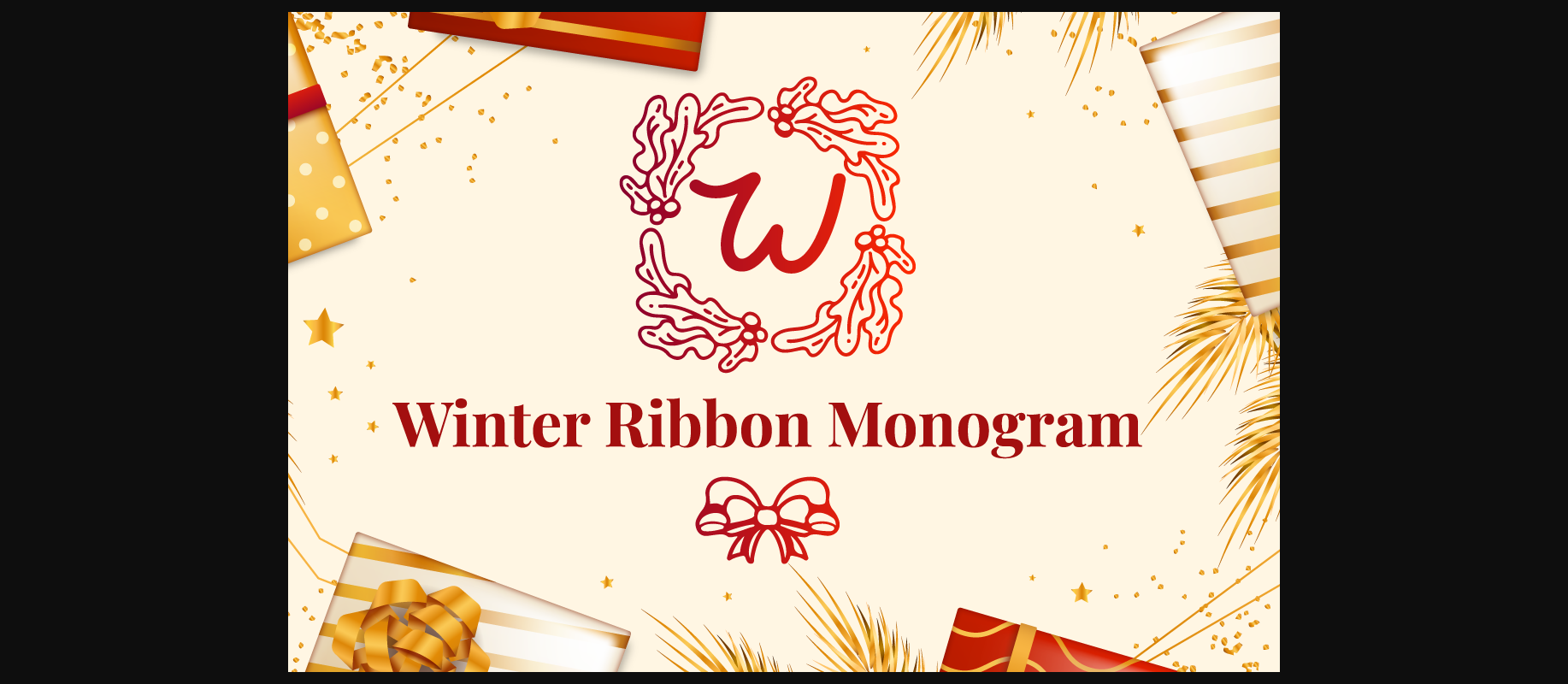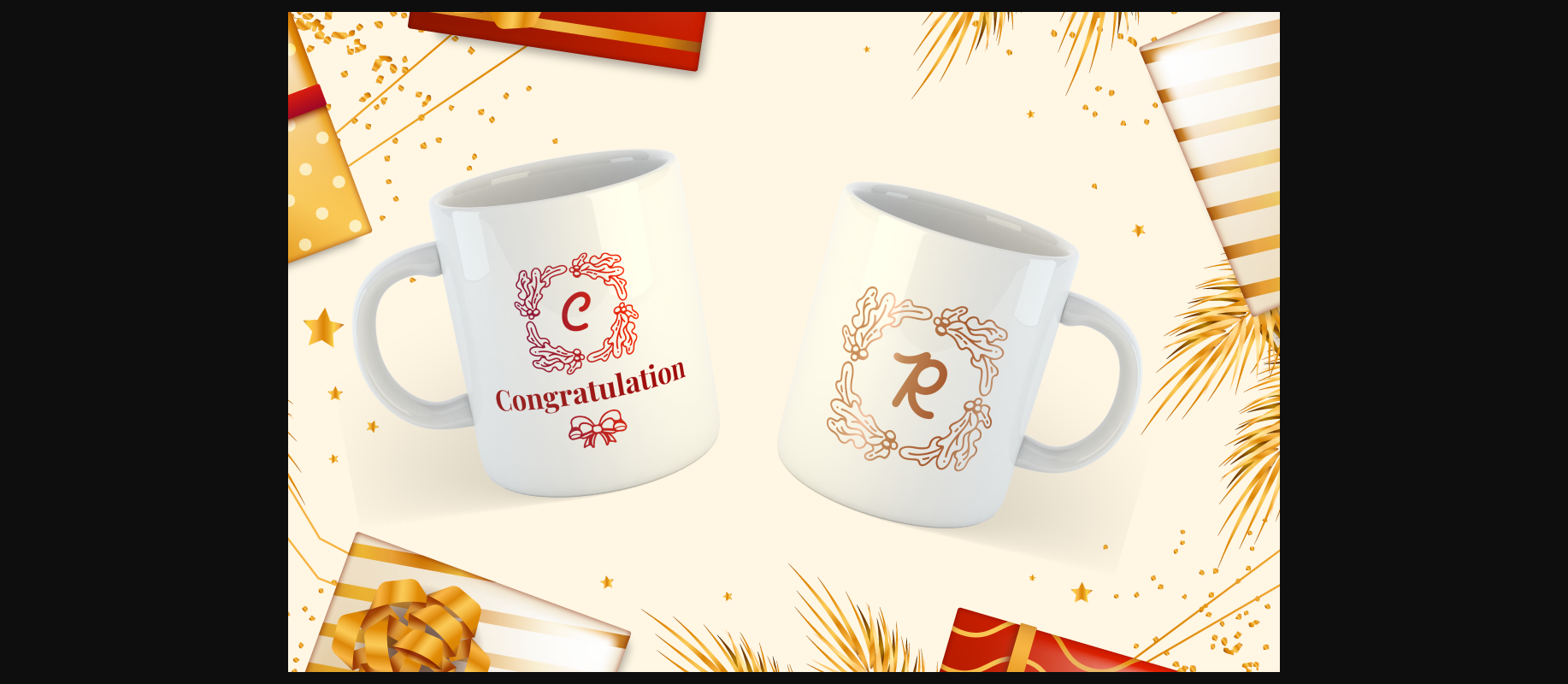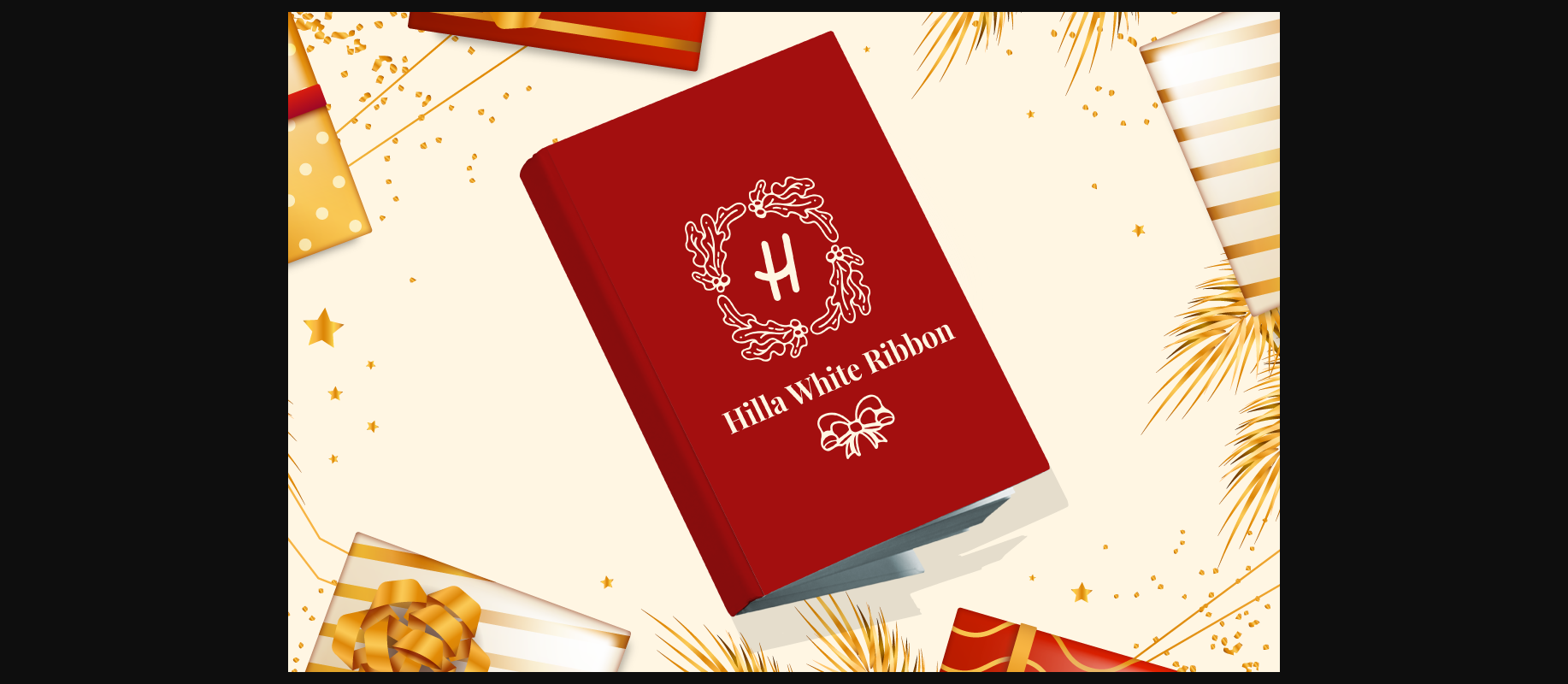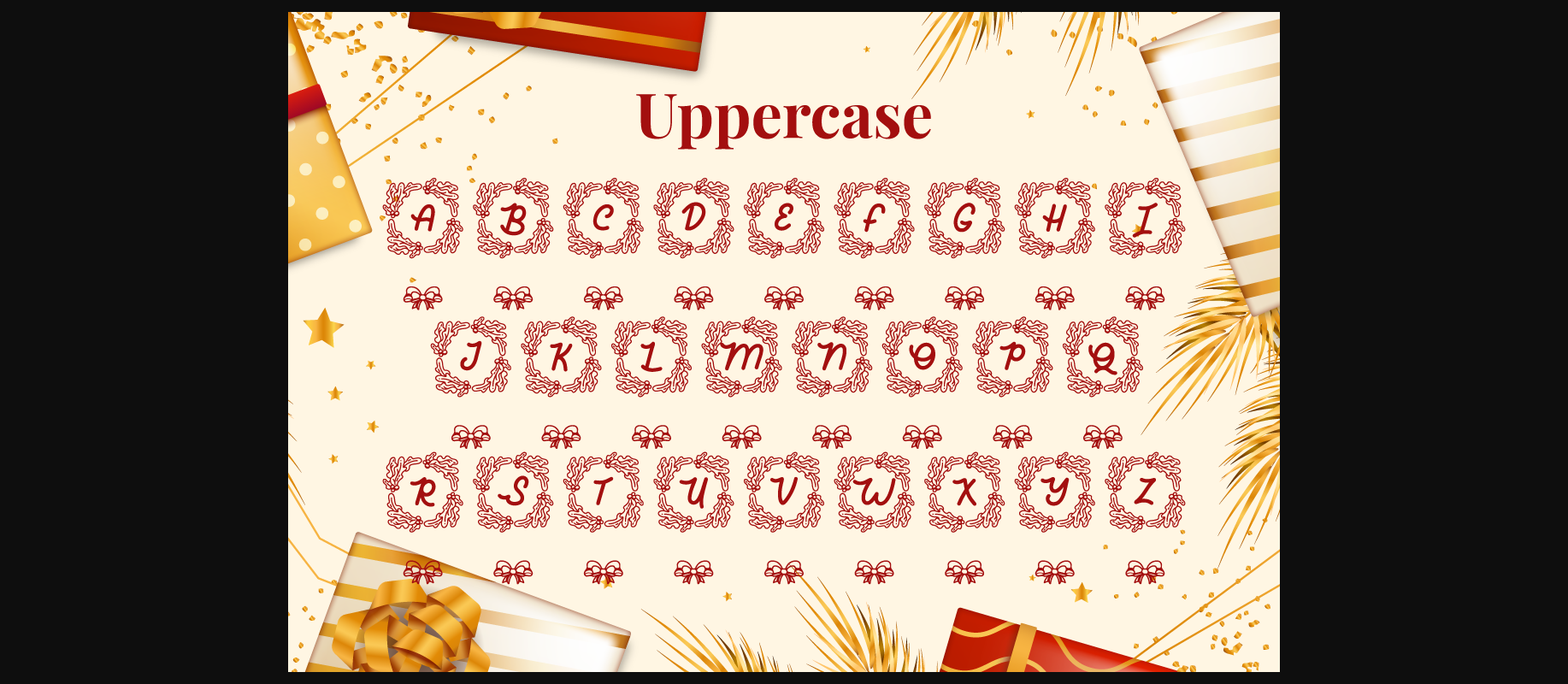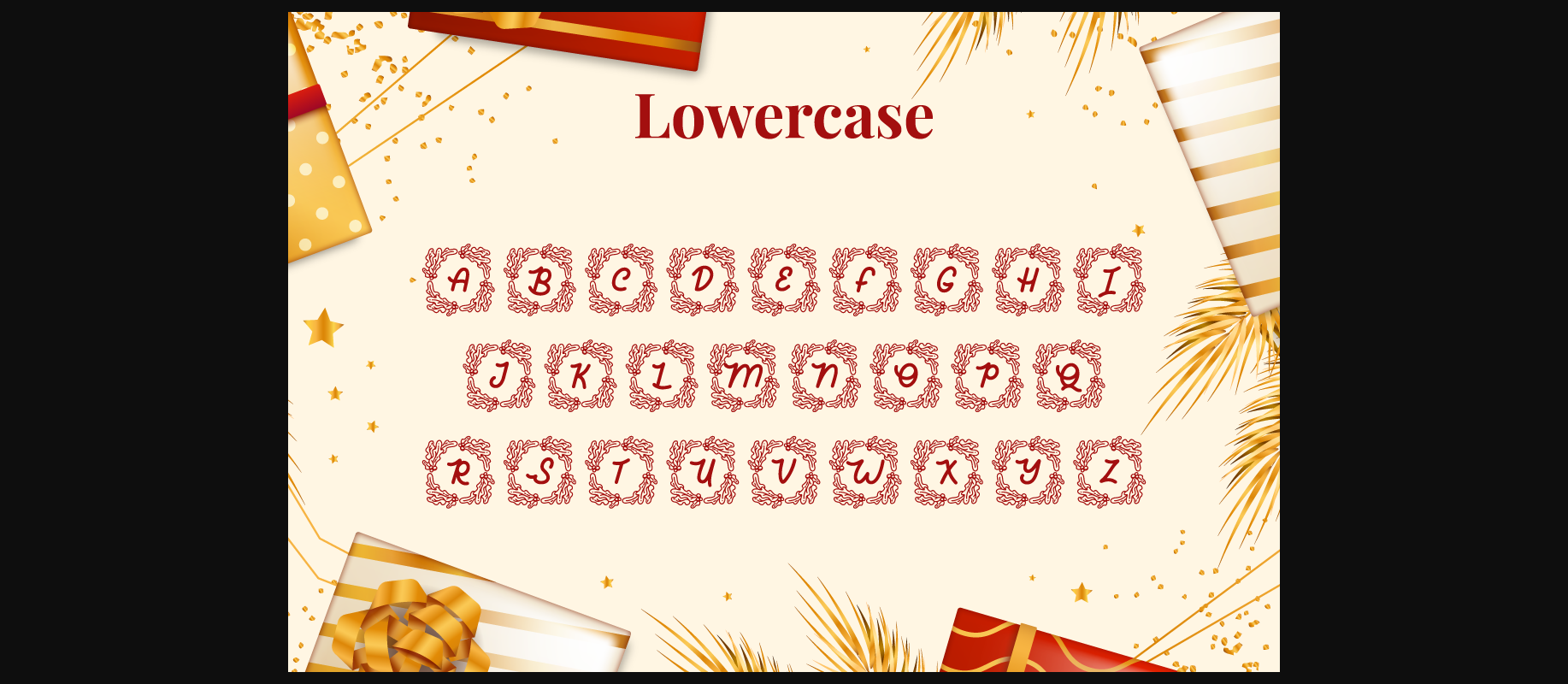
About Winter Ribbon Monogram Font
Winter Ribbon Monogram is a dainty and unique decorative font. Add this warm and lovely looking font to each of your love letters, wedding invitations or favorite design ideas, and you will be astounded by the outcome.